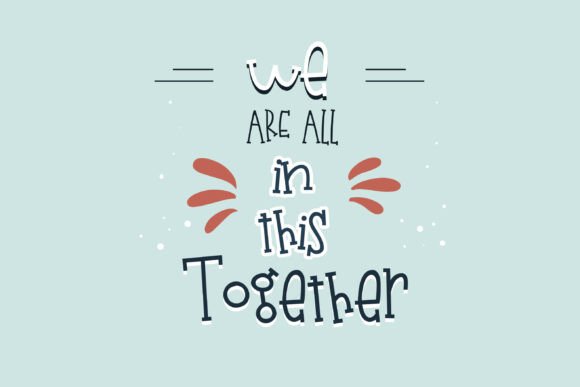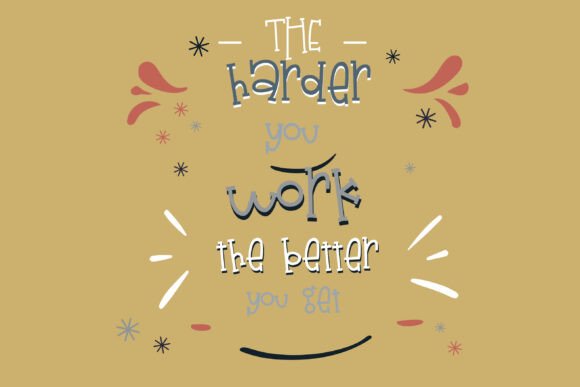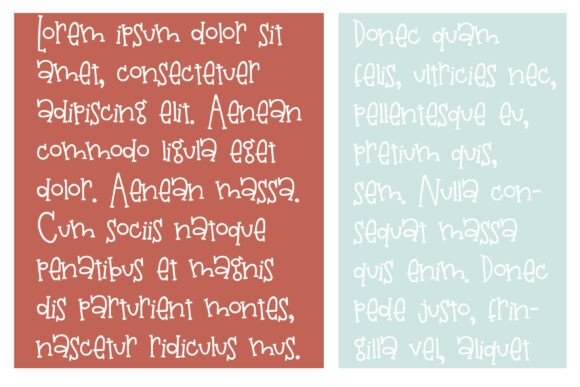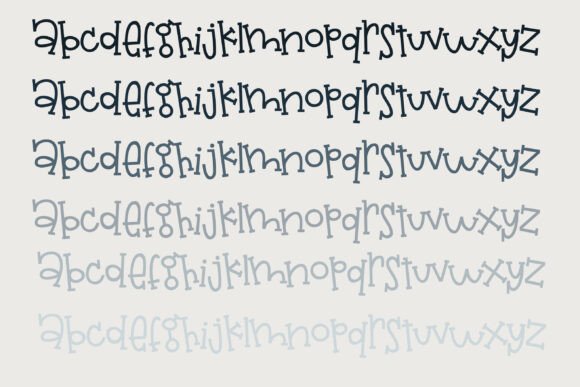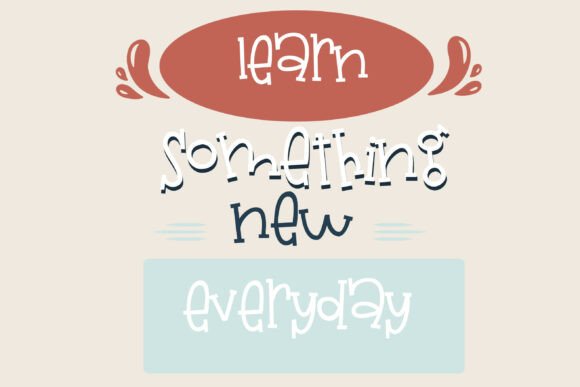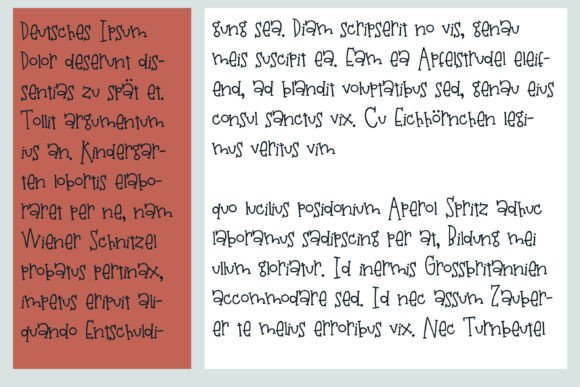
Introduction to Pn Loudville Fn Font Font
Fonts play a crucial role in design, and the Pn Loudville Fn Font font is a typeface that brings both character and versatility to any project. Whether you’re working on a branding project, a website, or a print design, the Pn Loudville Fn Font font offers a unique style that can elevate your work.
Pn Loudville Fn is a whimsical display serif font that blends playful charm with handcrafted elegance.
Characterized by its quirky letterforms, uneven baselines, and exaggerated serifs, it captures a childlike imagination while maintaining clarity and personality Each glyph features subtle irregularities that give it a dynamic, organic feelβ€”perfect for designs that seek warmth and individuality.
Key Features of Pn Loudville Fn Font Font
• βœ… Includes a wide range of glyphs and characters
• βœ… Ideal for logos, branding, websites, and print
Why Choose Pn Loudville Fn Font Font?
The Pn Loudville Fn Font font is more than just a typeface – it’s a design tool that helps you communicate your message with style and clarity. Its unique character set and versatile design make it suitable for a wide range of applications, from elegant invitations to bold headlines.
With its carefully crafted letterforms and balanced proportions, the Pn Loudville Fn Font font ensures readability and visual appeal across all mediums.
What makes Pn Loudville Fn Font font special?
The Pn Loudville Fn Font font stands out with its unique design, exceptional readability, and versatility across various design applications.